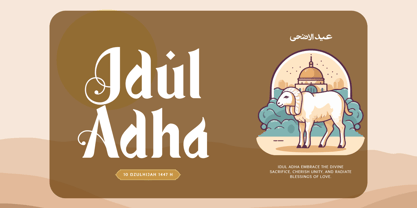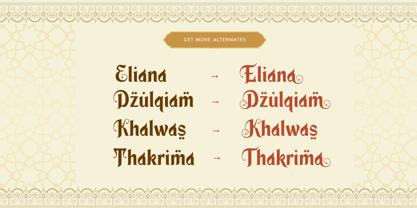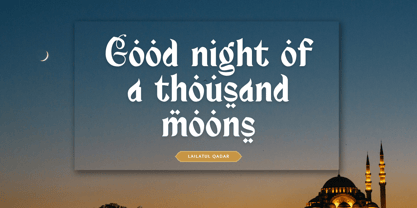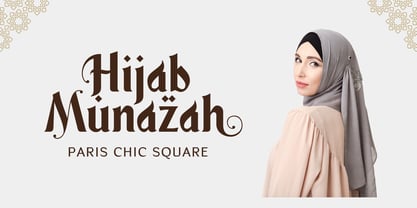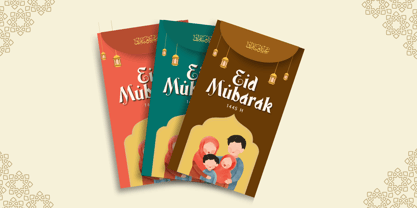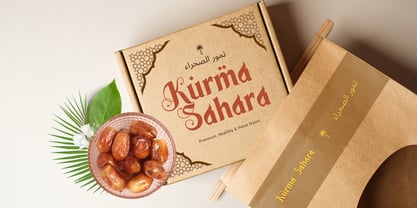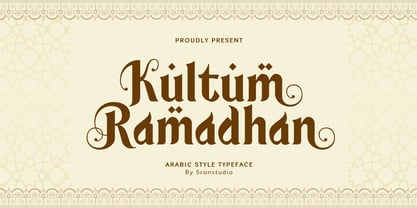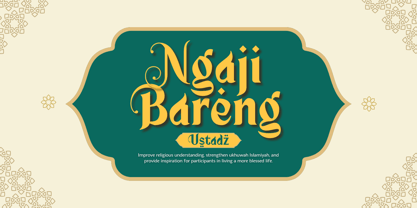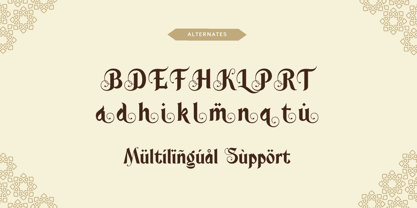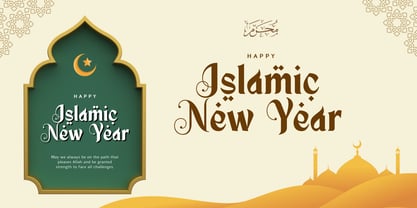
Kultum Ramadhan
von Sronstudio
Die Schriftfamilie Kultum Ramadhan wurde von Muhamad Yusron Billah entworfen und von Sronstudio veröffentlicht. Kultum Ramadhan enthält 1 Stile. Mehr über diese Familie
Kultum Ramadhan is a unique Arabic Fauxlang font that blends traditional Middle Eastern aesthetics with a modern artistic touch. Designed to capture the elegance of Arabic-style typography, this font is perfect for Ramadan-themed designs, Islamic events, branding, posters, packaging, and more. With its intricate letterforms and decorative appeal, Kultum Ramadhan adds a cultural and mystical charm to any project.
- Alternate letters for added versatility
- Uppercase & lowercase letters
- Numerals & punctuation
- Multilingual support
Designer: Muhamad Yusron Billah
Foundry: Sronstudio